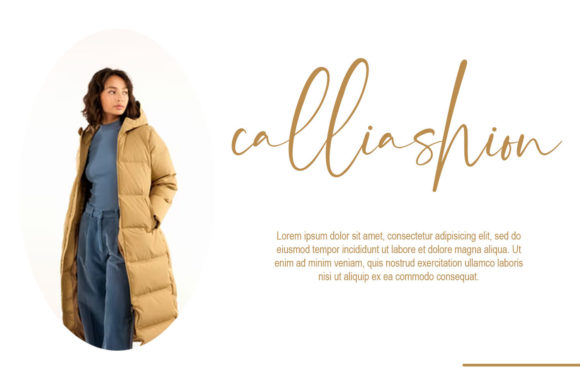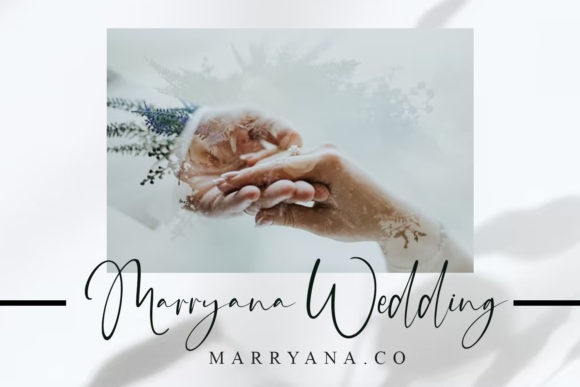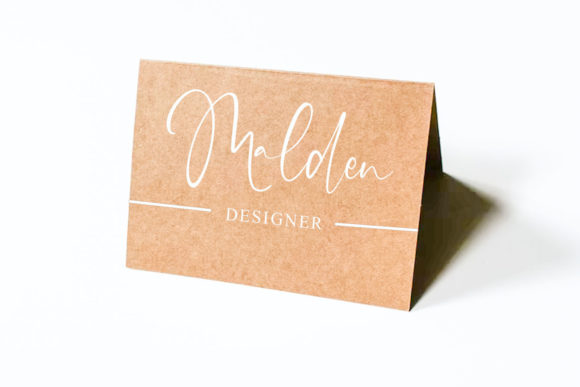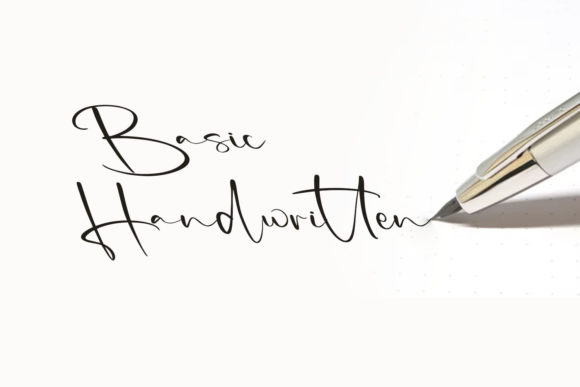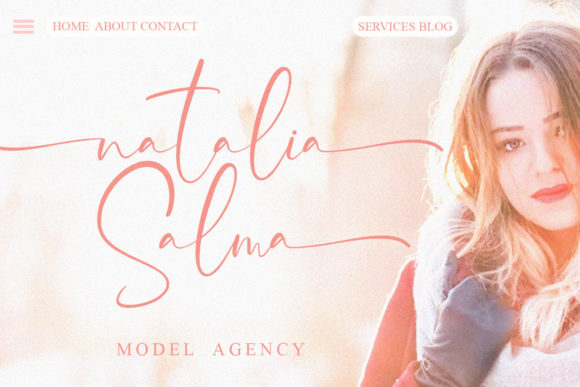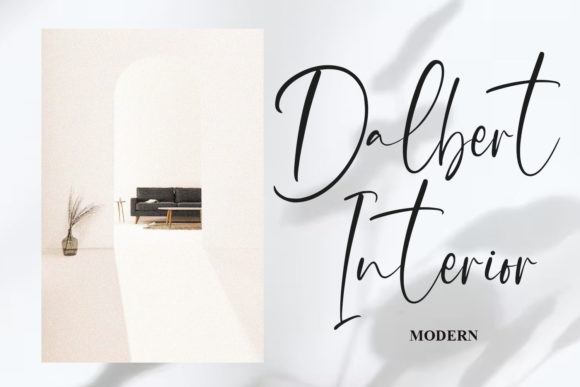
Garden Party Font: Elevate Your Designs with Elegance and Whimsy
Are you searching for a font that exudes elegance, sophistication, and a touch of playfulness? Look no further than the Garden Party font. This stunning script font is perfect for designers and crafters who want to add a romantic and authentic feel to their creations. In this article, we’ll dive into the world of Garden Party font, exploring its features, uses, and benefits.
What is Garden Party Font?
Garden Party is a stylish and delicate script font that is sure to capture your heart. Its authentic feel and beautiful lettering make it an ideal choice for a variety of design projects. Whether you’re creating wedding invitations, stationary art, social media posts, or greeting cards, this font is sure to impress.
Key Features of Garden Party Font
- PUA Encoded: Garden Party font is PUA (Private Use Area) encoded, which means you can access all the glyphs and swashes with ease. This feature allows you to customize your designs and add a personal touch.
- Stylish and Delicate: The font’s script style is both elegant and whimsical, making it perfect for designs that require a touch of sophistication and playfulness.
- Authentic Feel: Garden Party font has an authentic feel that will transport your designs to a bygone era. Its classic look and feel make it perfect for vintage-inspired designs.
Uses of Garden Party Font
Garden Party font is versatile and can be used for a variety of design projects, including:
- Wedding Invitations: Create beautiful and elegant wedding invitations that will set the tone for the big day.
- Stationary Art: Add a touch of whimsy and elegance to your stationary art, including notebooks, journals, and greeting cards.
- Social Media Posts: Elevate your social media posts with Garden Party font and make them stand out from the crowd.
- Greeting Cards: Create cute and personalized greeting cards for special occasions, such as birthdays, anniversaries, and holidays.
Benefits of Using Garden Party Font
Using Garden Party font in your designs comes with several benefits, including:
- Elegance and Sophistication: The font’s elegant and sophisticated look will elevate your designs and add a touch of luxury.
- Customization: With PUA encoding, you can customize the font to suit your design needs and add a personal touch.
- Versatility: Garden Party font can be used for a variety of design projects, making it a great addition to your font library.
Tips for Using Garden Party Font
To get the most out of Garden Party font, here are some tips to keep in mind:
- Use Swashes and Glyphs: Take advantage of the font’s PUA encoding and use swashes and glyphs to add a personal touch to your designs.
In conclusion, Garden Party font is a stunning script font that is perfect for designers and crafters who want to add elegance, sophistication, and whimsy to their designs. With its PUA encoding, stylish and delicate design, and authentic feel, this font is sure to become a favorite in your font library. Whether you’re creating wedding invitations, stationary art, social media posts, or greeting cards, Garden Party font is the perfect choice. So why wait? Fall in love with Garden Party font and elevate your designs to new heights!